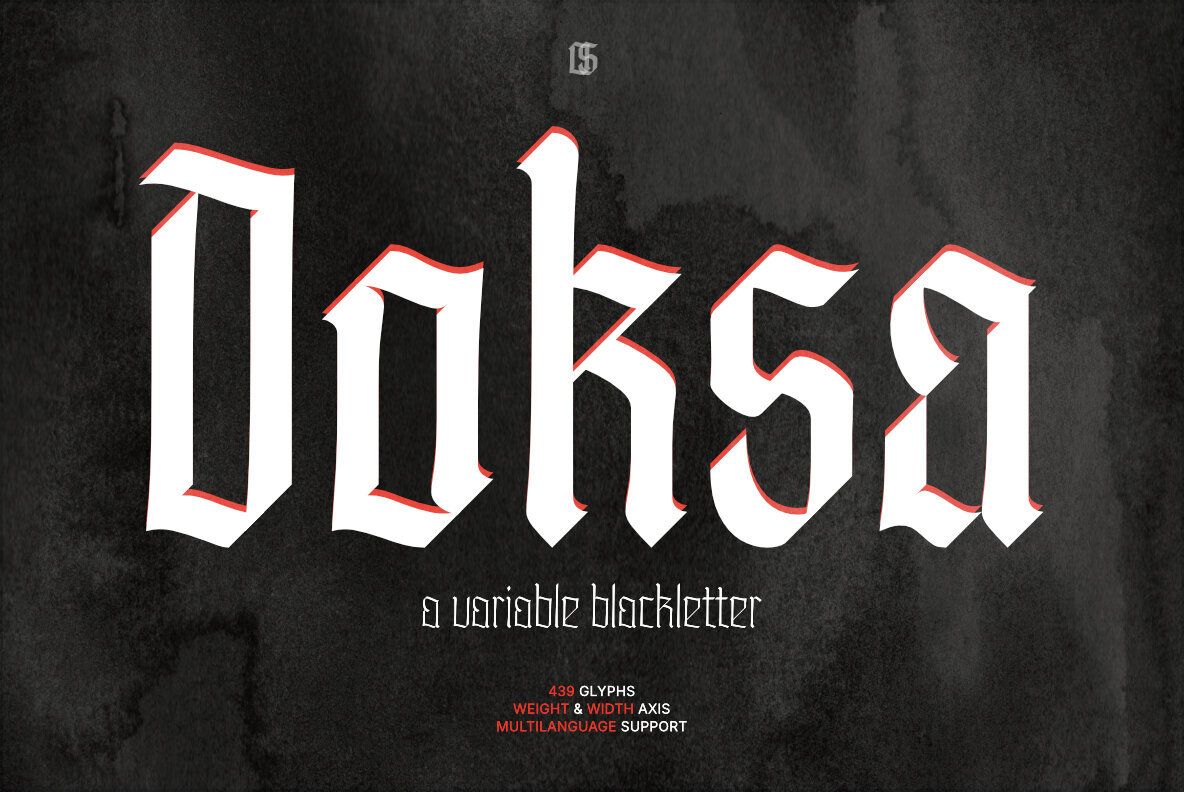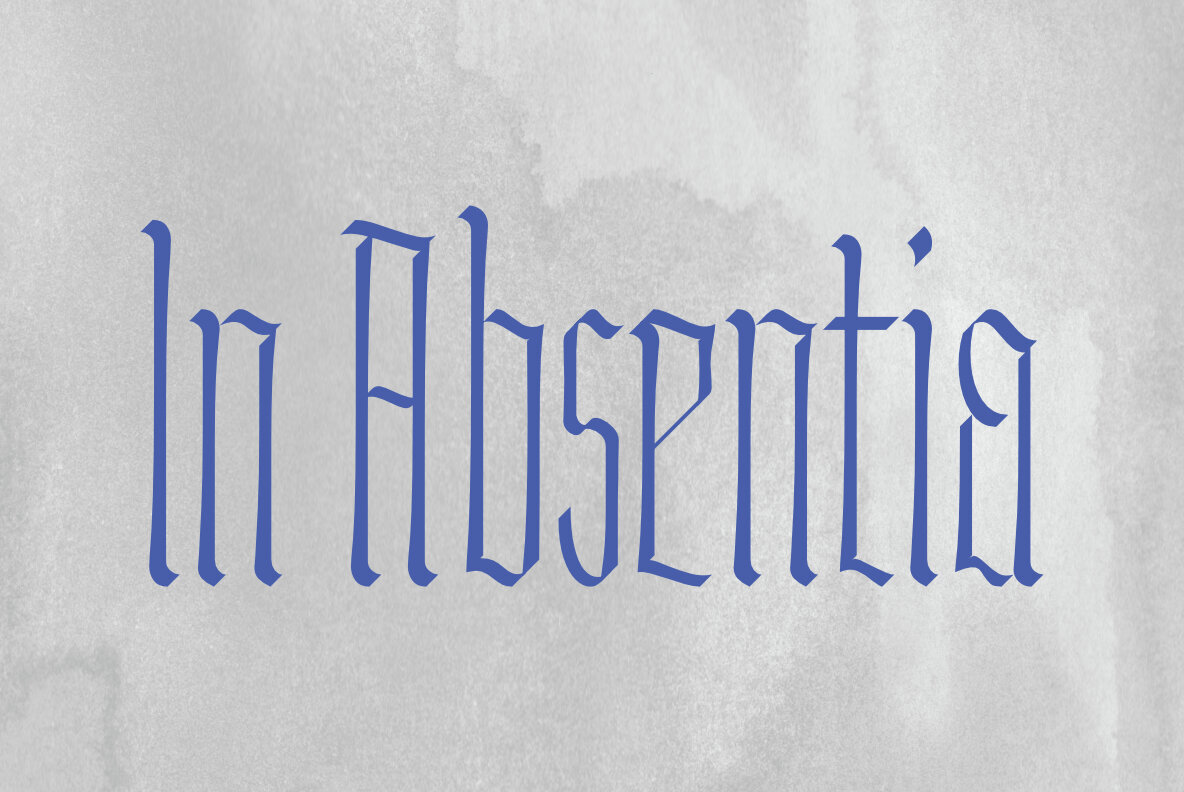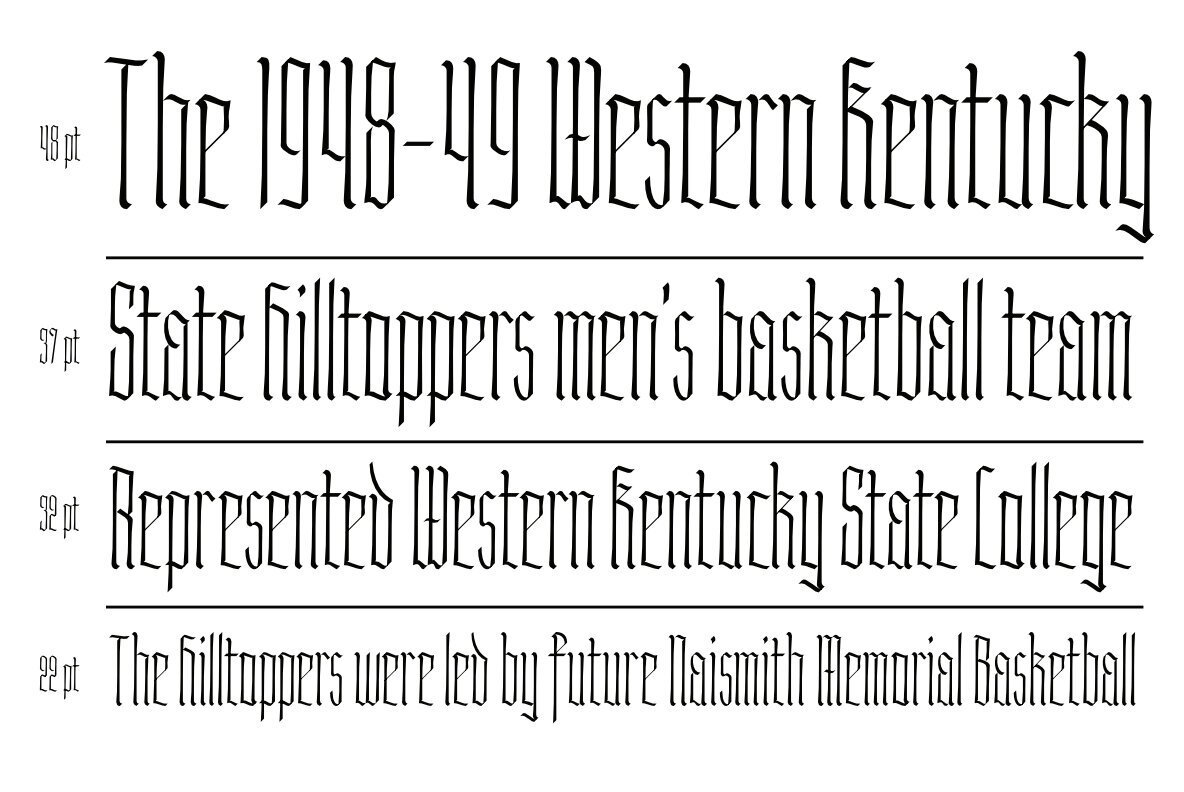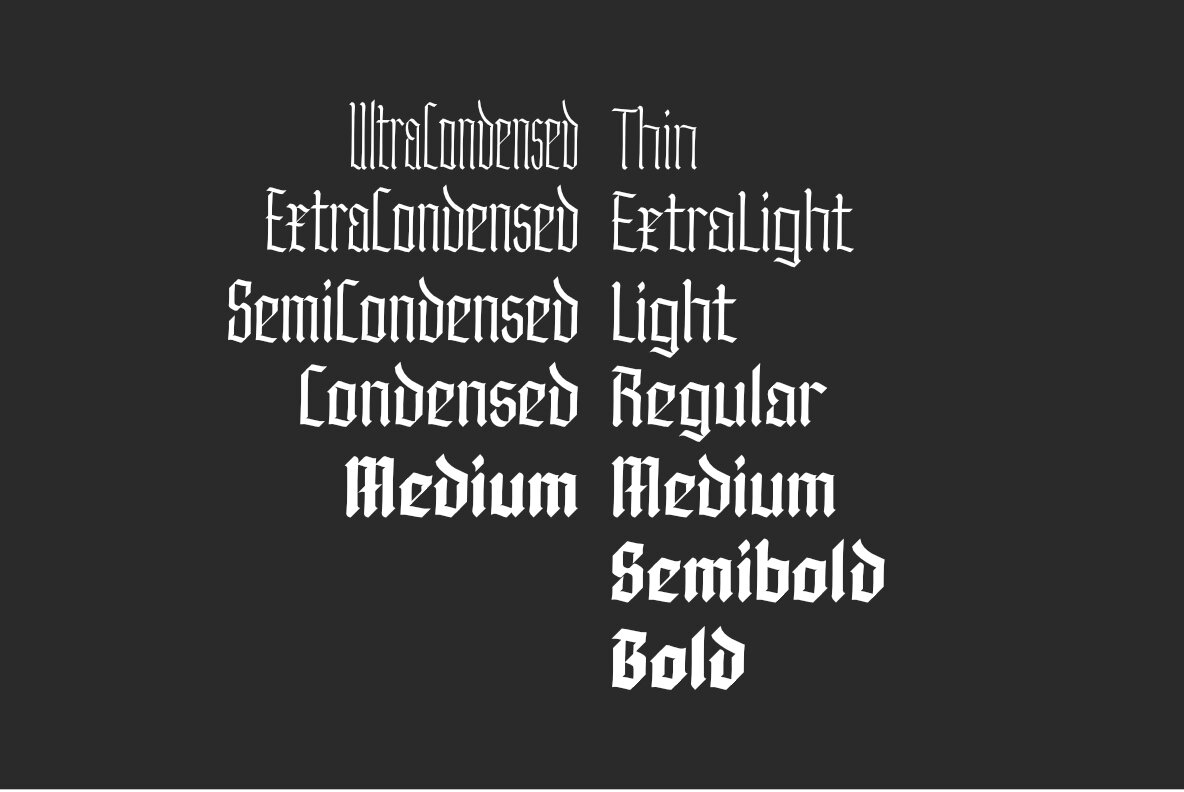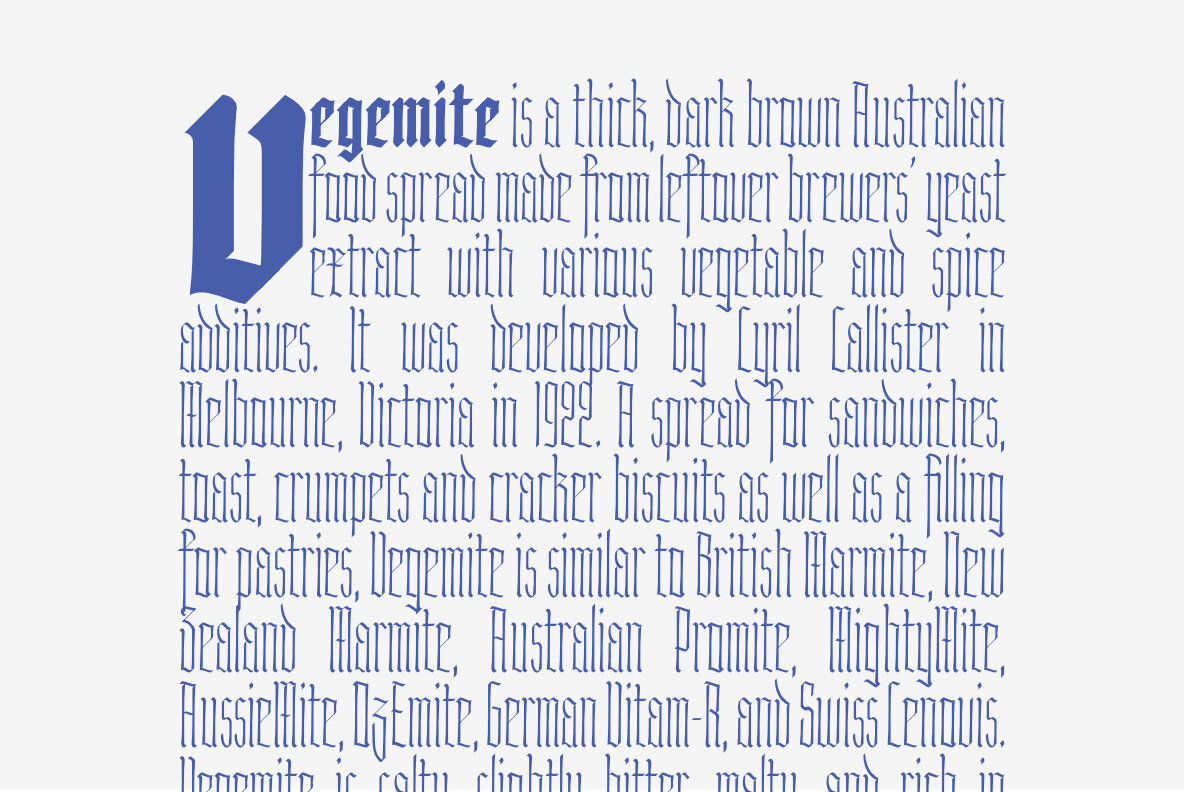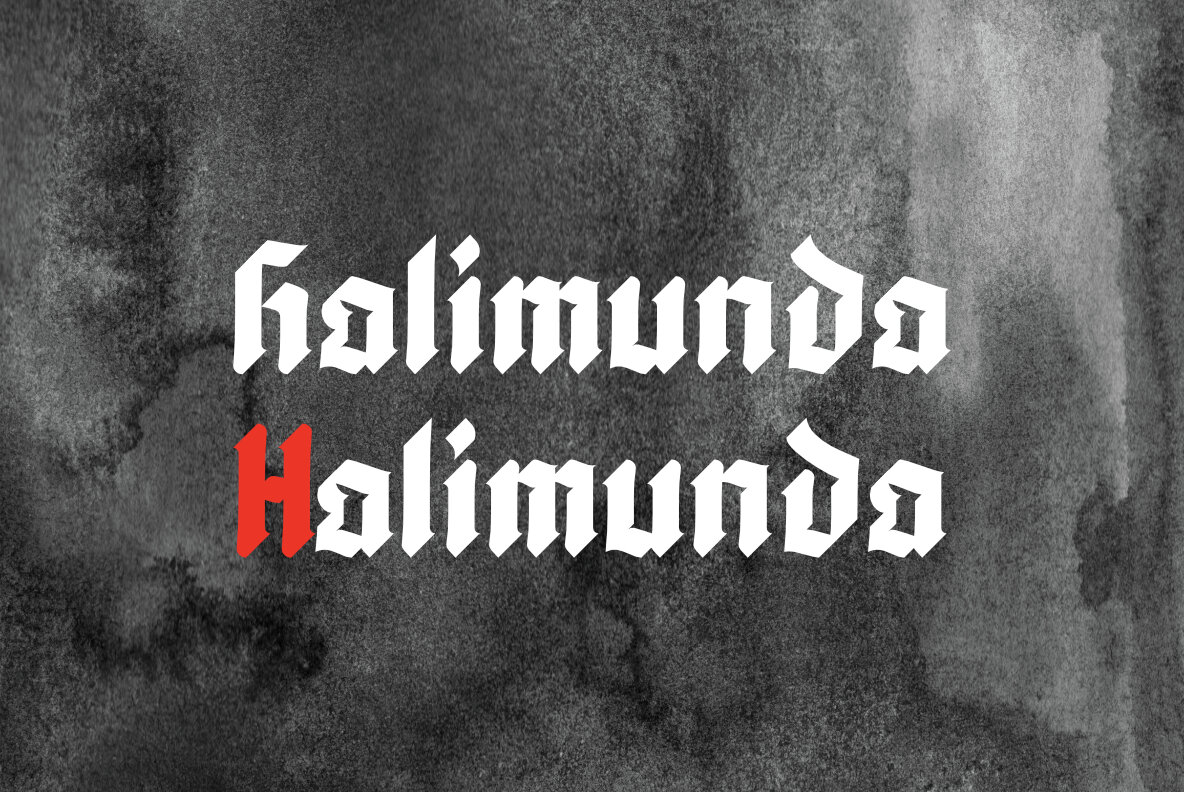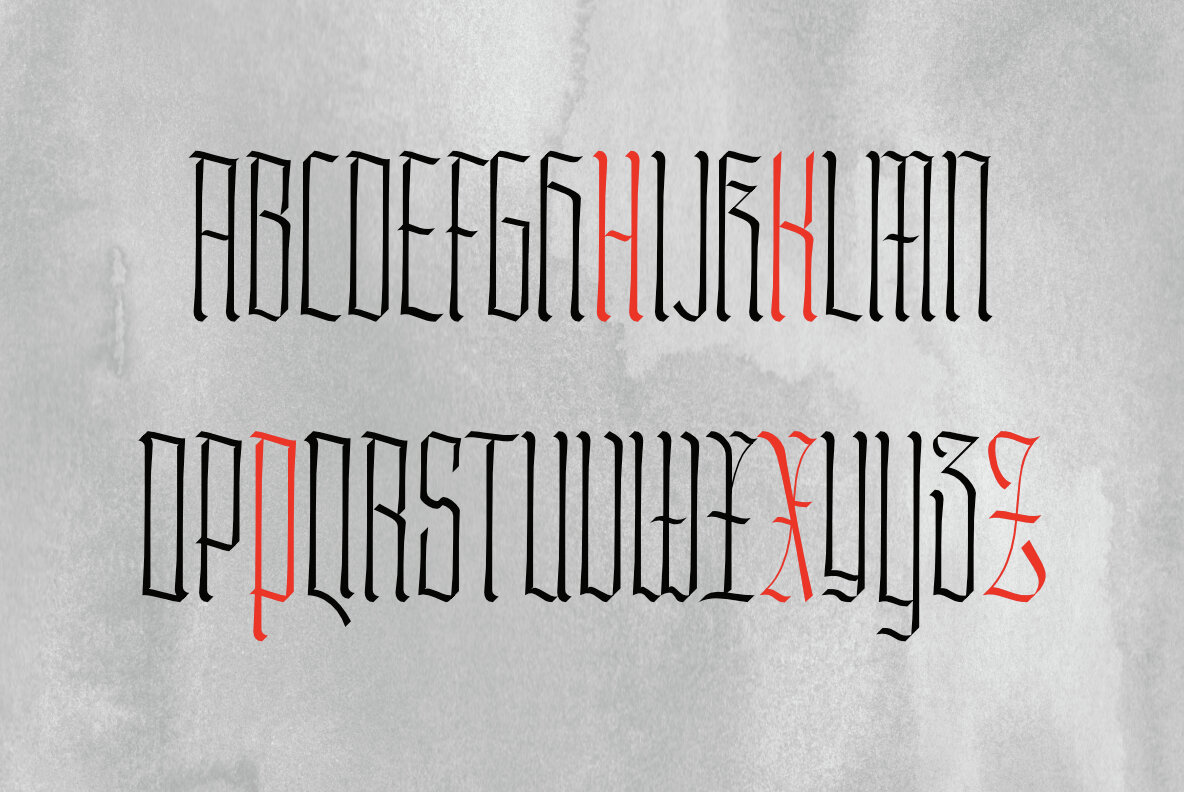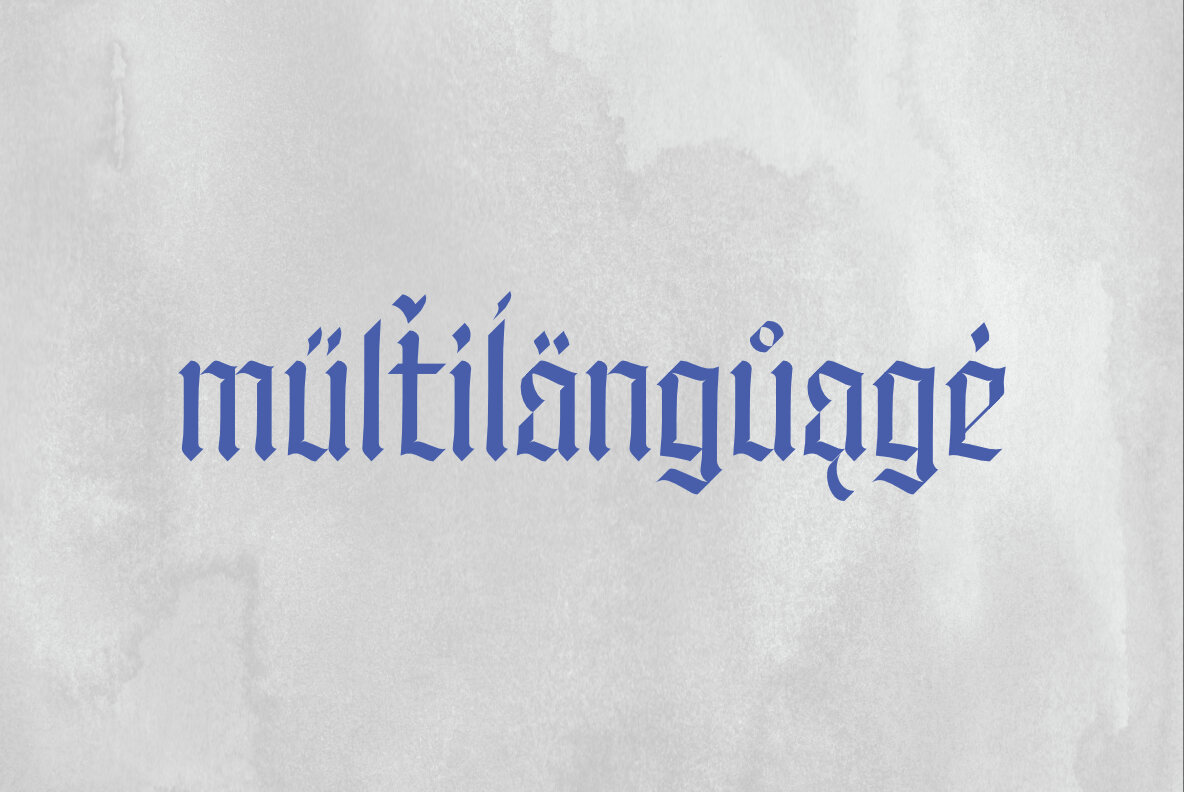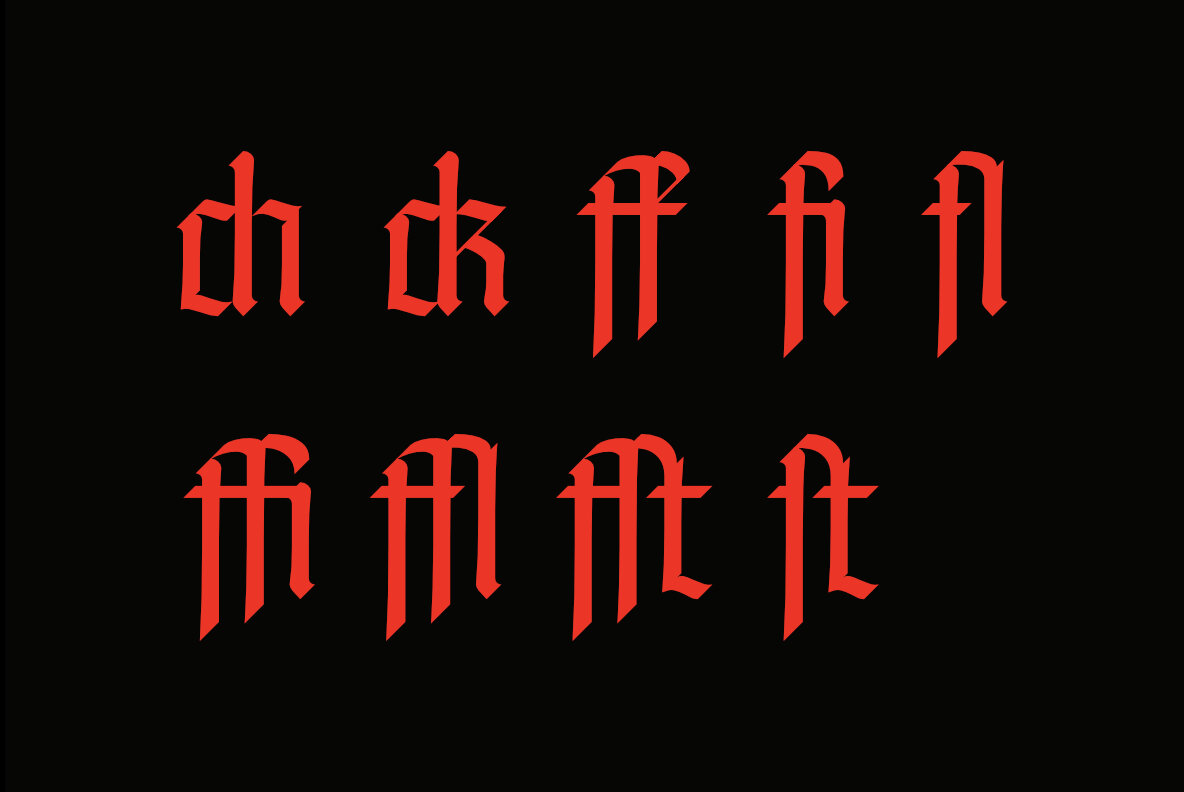
Doksa Font
Doksa reimagines classic Textura Blackletter with a refined, modern approach. Angular forms and simplified lines maintain the essence of hard-nib calligraphy, while introducing clarity and adaptability for today's design standards. This variable typeface features two axes—Weight and Width—allowing seamless adjustments from Thin to Bold and UltraCondensed to Medium. The result is unparalleled flexibility, making Doksa ideal for diverse digital and print applications, from editorial headlines to striking branding elements. Doksa stands out with its harmonious blend of historic character and modern utility. Its unique construction and versatile axes support creative exploration, while the robust glyph set meets the needs of contemporary graphic designers seeking originality without sacrificing legibility.Doksa Modern Variable Blackletter Typeface